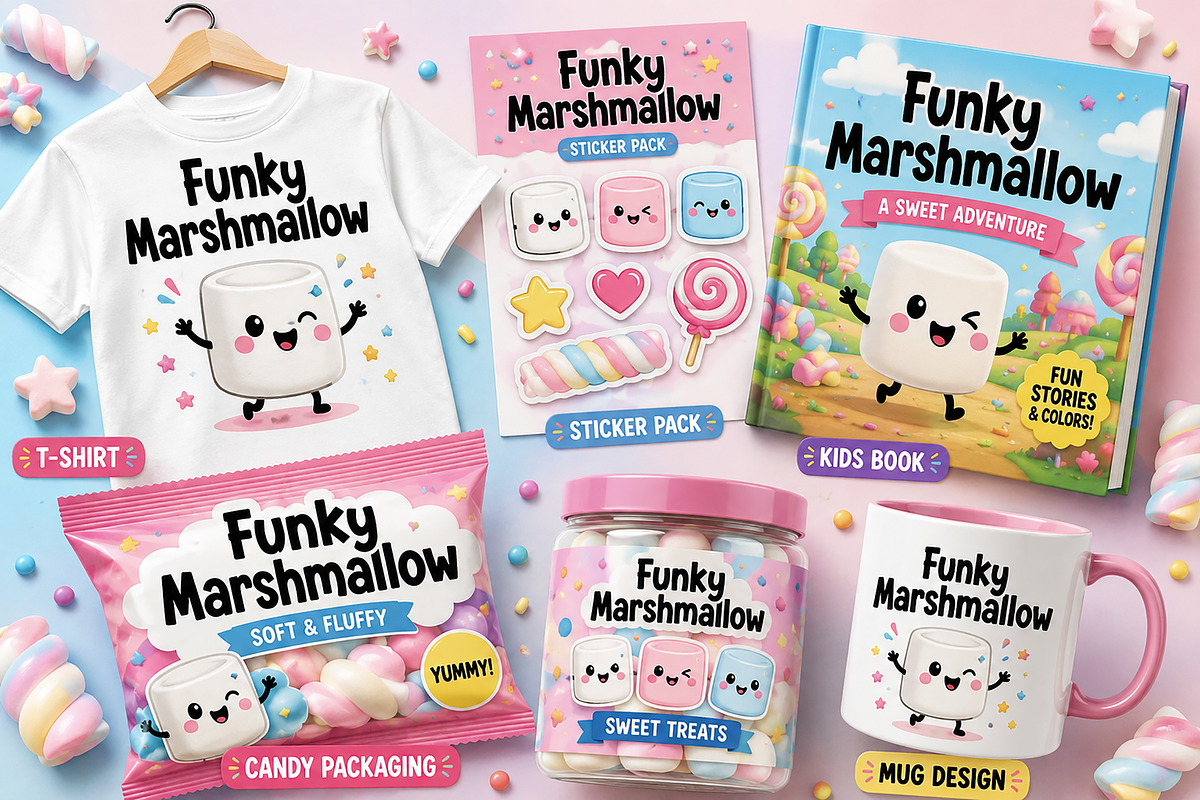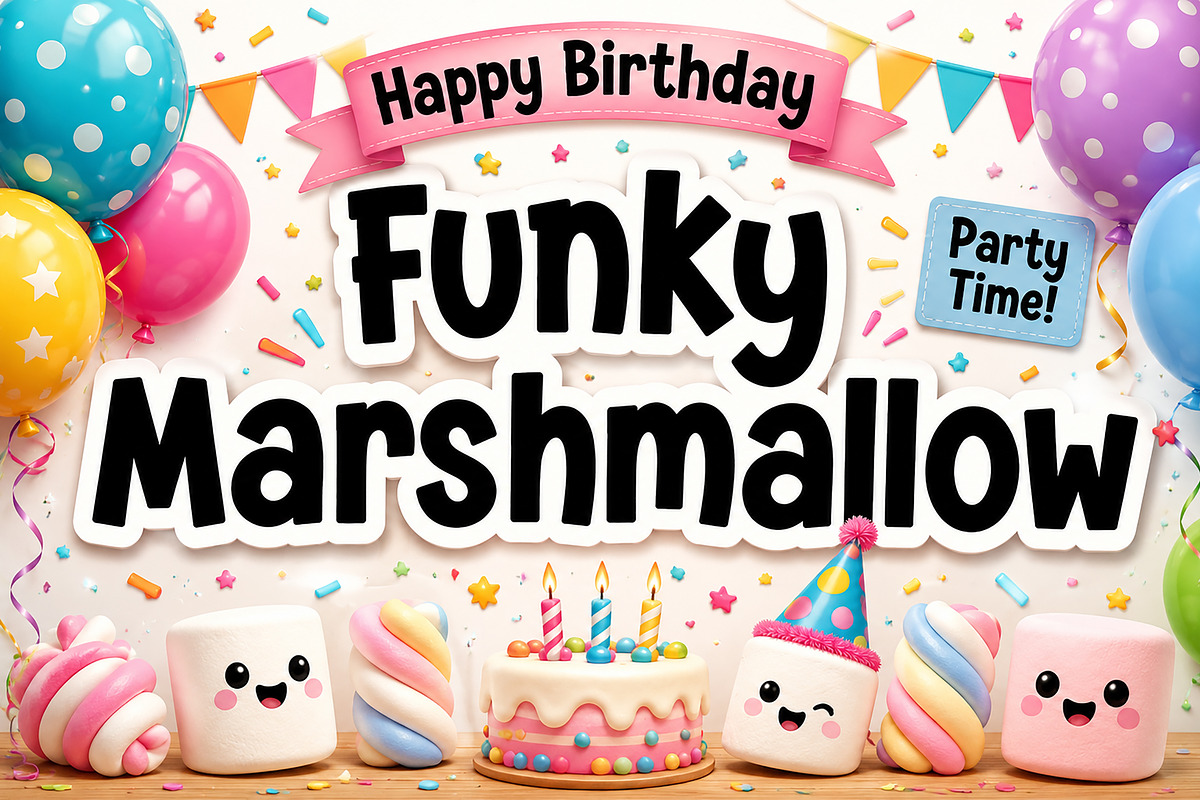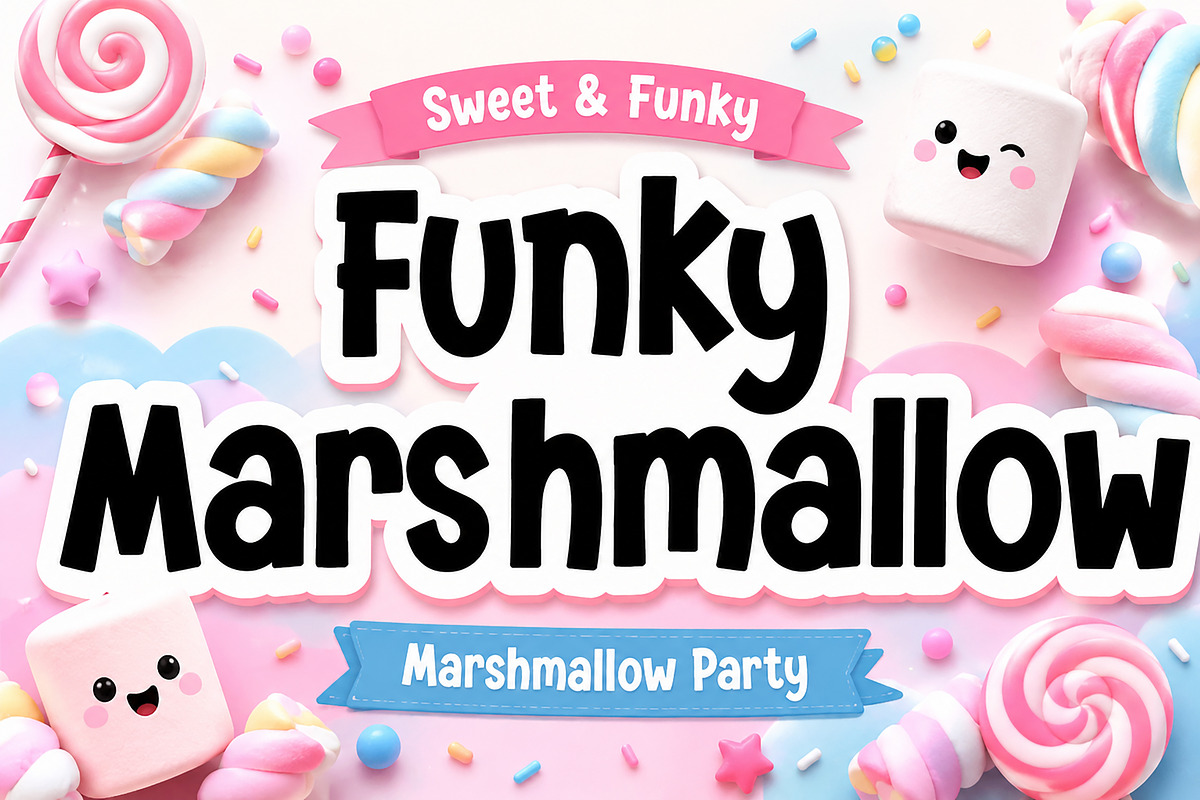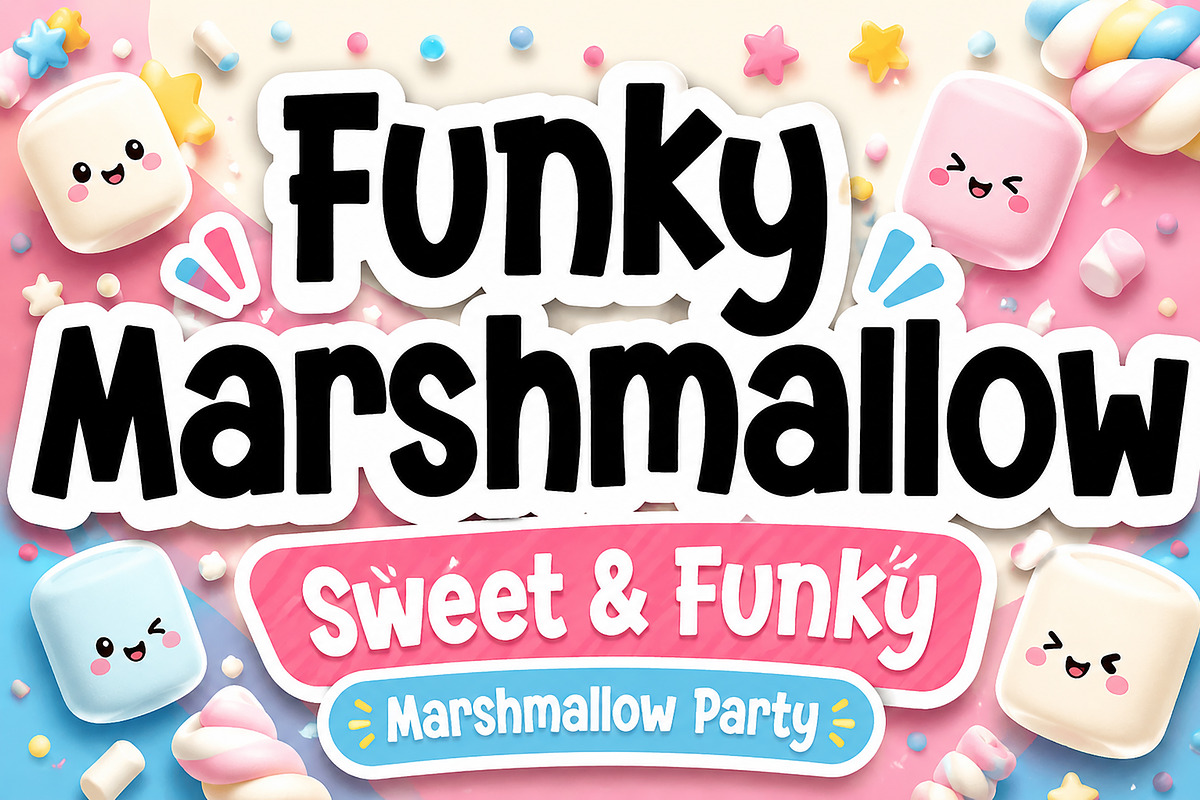
Funky Marshmallow
Bold Display Sans / Playful Sans / Handcrafted Typeface
A bold and playful handcrafted sans font with funky letter shapes, perfect for kids designs, posters, stickers, packaging, T-shirts, and fun branding projects.
Funky Marshmallow is a bold playful sans font with a fun handcrafted style. Its chunky letterforms, uneven curves, and funky shapes create a cheerful and energetic look, making it perfect for designs that need a cute, friendly, and eye-catching personality.
This font is great for kids products, birthday designs, candy packaging, stickers, posters, T-shirt designs, book covers, social media graphics, classroom projects, and playful branding.
Kids designs, party invitations, candy brands, sticker designs, playful logos, posters, packaging, T-shirts, children’s books, greeting cards, quotes, classroom projects, and fun brand identity.